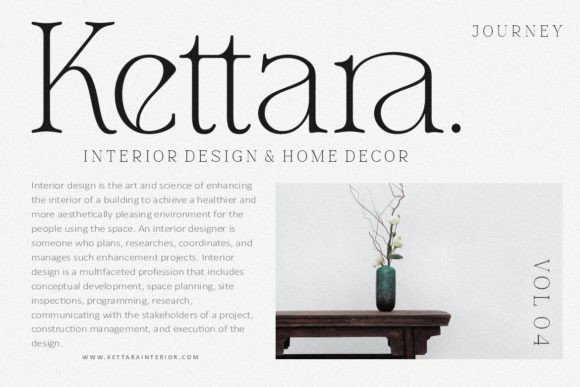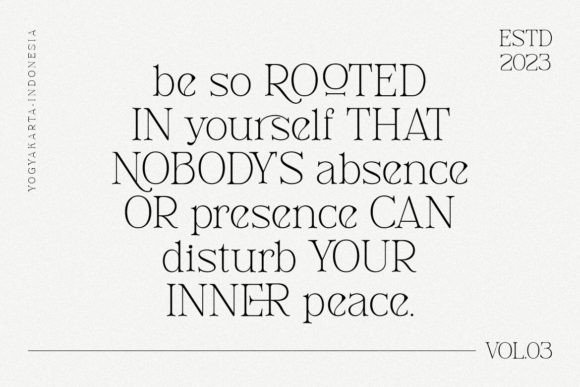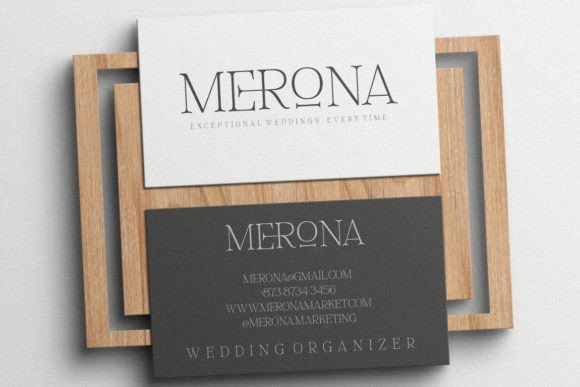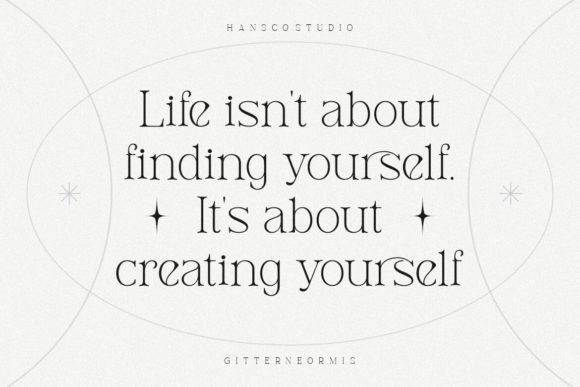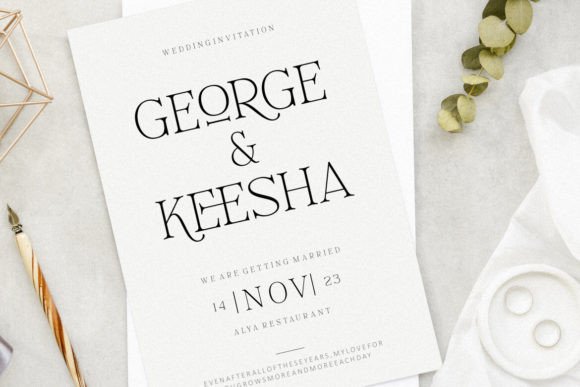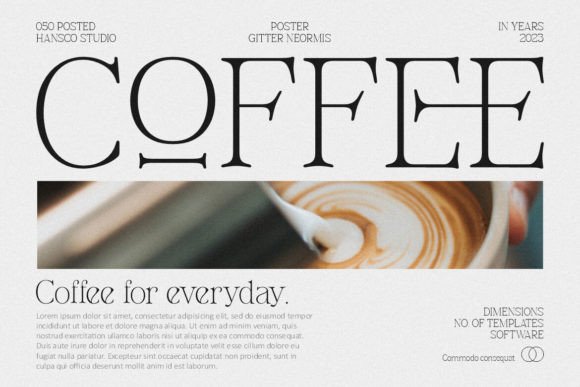
Gitter Neormis Font: Elevate Your Designs with Elegance and Sophistication
In the world of typography, a font can make or break a design. For designers and crafters seeking a classy and unique look, Gitter Neormis Font is an excellent choice. This stunning display serif font boasts a distinctive style that is perfect for a wide range of multipurpose projects. Inspired by the concept of romantic vibes, Gitter Neormis Font seamlessly blends modernity with luxury, making it an ideal addition to any design.
A Modern yet Luxurious Style
Gitter Neormis Font’s design is rooted in the idea of creating a sense of romance and elegance. The font’s unique look is characterized by its refined serifs, elegant lines, and sophisticated overall appearance. This makes it perfect for designers who want to add a touch of luxury to their projects. Whether you’re working on a logo, branding, or packaging design, Gitter Neormis Font is sure to impress.
Multipurpose and Versatile
One of the standout features of Gitter Neormis Font is its versatility. This font is designed to work well in a variety of contexts, from digital designs to print materials. Its elegant appearance makes it perfect for:
- Logo design: Create a lasting impression with a custom logo that exudes sophistication and elegance.
- Crafts: Add a touch of luxury to your handmade crafts, such as cards, invitations, and gift tags.
- Posters: Create eye-catching posters that showcase your brand’s personality and style.
- Books: Use Gitter Neormis Font to add a touch of elegance to your book designs, whether it’s a novel, cookbook, or photography book.
- Branding: Establish your brand’s identity with a consistent and sophisticated visual style.
- Quotes: Create inspiring and stylish quote designs that are perfect for social media or print materials.
- Print templates: Use Gitter Neormis Font to create stunning print templates for brochures, flyers, and more.
- Packaging: Elevate your product packaging with a luxurious and eye-catching design.
- Invitations: Create beautiful and elegant invitations for weddings, parties, and other special events.
- Product labels: Add a touch of sophistication to your product labels and make your products stand out.
- Advertising: Use Gitter Neormis Font to create stunning ad designs that capture your audience’s attention.
- Wedding projects: Make your wedding designs, such as invitations, programs, and decorations, truly unforgettable.
Comprehensive Character Set
Gitter Neormis Font comes with a comprehensive character set, including:
- Uppercase letters: Perfect for titles, headings, and emphasis.
- Lowercase letters: Ideal for body text, descriptions, and captions.
- Punctuation: Ensure proper sentence structure and clarity with a range of punctuation marks.
- Symbols: Add visual interest to your designs with a variety of symbols and glyphs.
- Numerals: Use Gitter Neormis Font’s elegant numerals to add a touch of sophistication to your designs.
- Ligature: Create beautiful and unique letter combinations with Gitter Neormis Font’s ligature feature.
- Stylistic alternates: Switch between different letterforms to add visual interest and variety to your designs.
Why Choose Gitter Neormis Font?
With so many fonts available, why choose Gitter Neormis Font? Here are just a few reasons:
- Unique look: Gitter Neormis Font boasts a distinctive style that will set your designs apart.
- Elegant appearance: Add a touch of luxury and sophistication to your designs.
- Versatile: Use Gitter Neormis Font in a wide range of contexts, from digital designs to print materials.
- Comprehensive character set: Ensure you have everything you need to create stunning designs.
In conclusion, Gitter Neormis Font is an excellent choice for designers and crafters seeking a classy and unique display serif font. Its elegant appearance, versatility, and comprehensive character set make it perfect for a wide range of multipurpose projects. Elevate your designs with Gitter Neormis Font and add a touch of luxury and sophistication to your work.
| Font Name | Gitter Neormis Font |
| Author | HansCo |